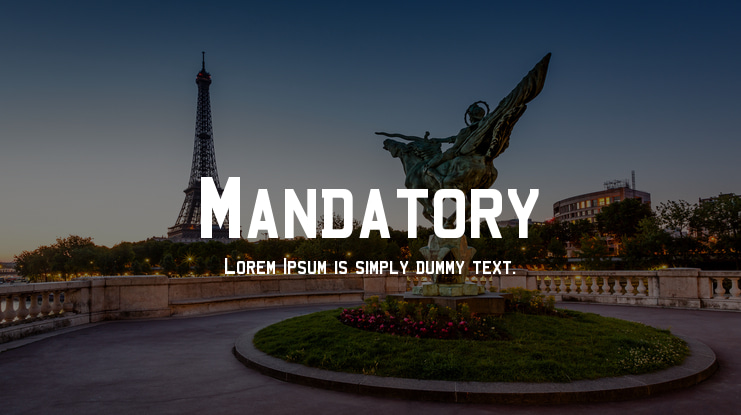
Mandatory Font Family
Mandatory is a full small caps font developed from the typeface used for UK vehicle registration plates. There is improved stroke separation on the M and W which are pointed at the centre, and the tail of the Q is thinner and clearer.
Mandatory by Keith Bates is a full typeface based on the font used for UK vehicle registration plates, but with improved M and W stem separation. K-Type Freebie © 2004, 2007 (Version 3.03)